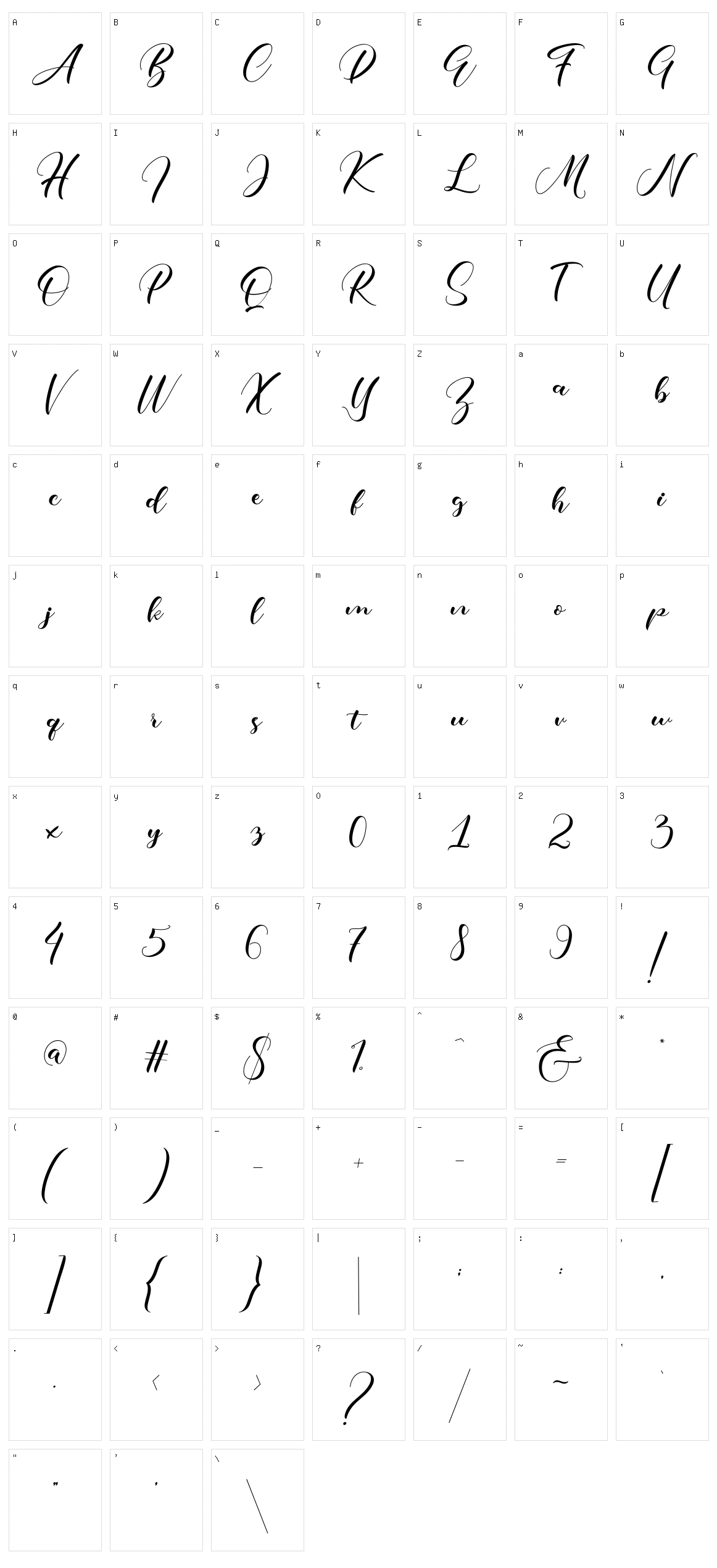
The free font Undella is carefully designed by Bexxtype, showcasing a thoughtful balance of creativity and usability and falls under the Script font style. When you download the ZIP file, it contains only 74.26 KB of font files, making it lightweight and quick to download. Please review the license details below to understand permitted usage and distribution rights. If license information is not available, we recommend using this font for personal projects only or contacting the author directly for commercial usage permissions.